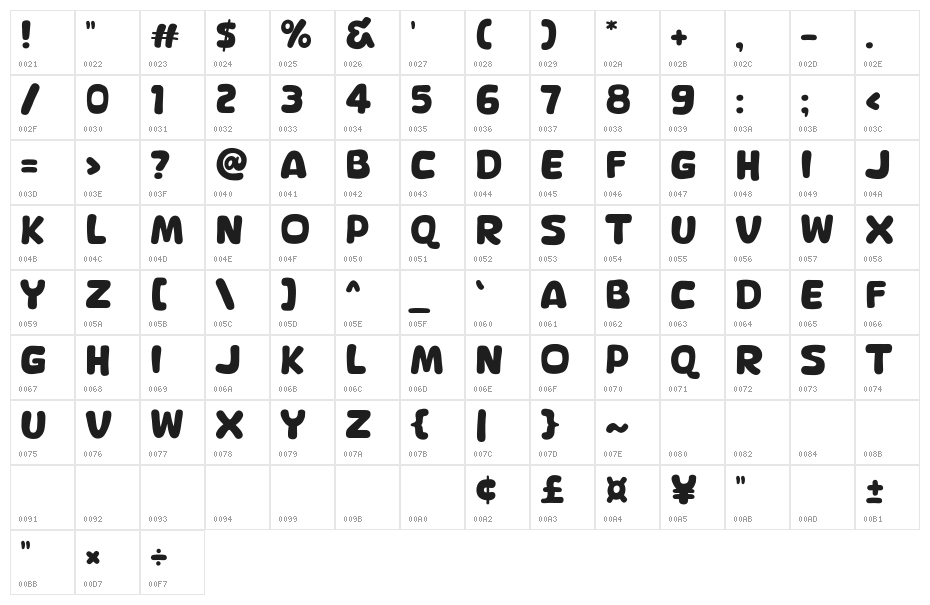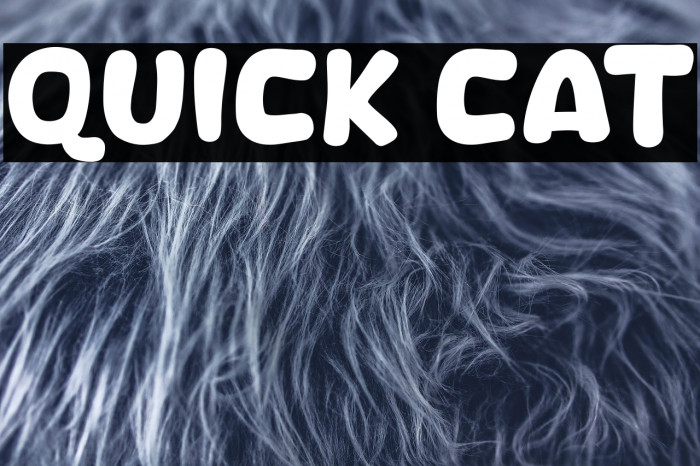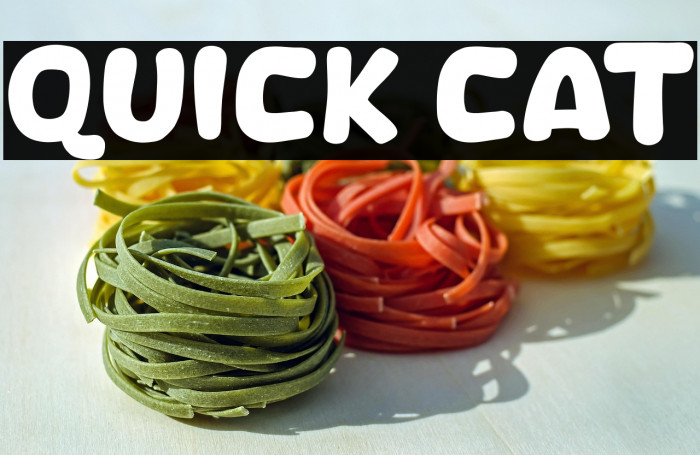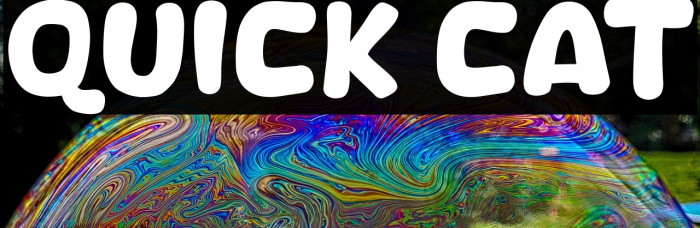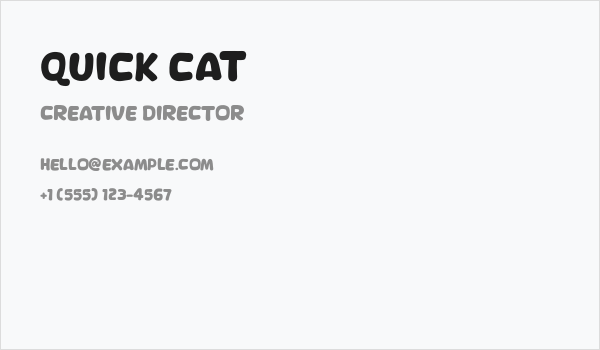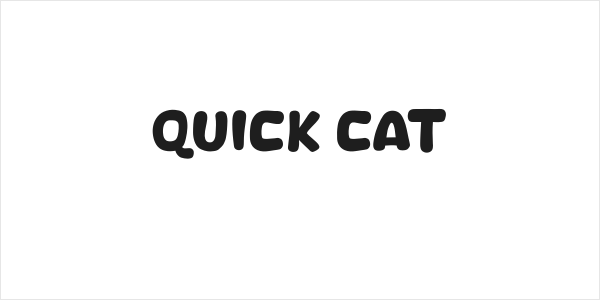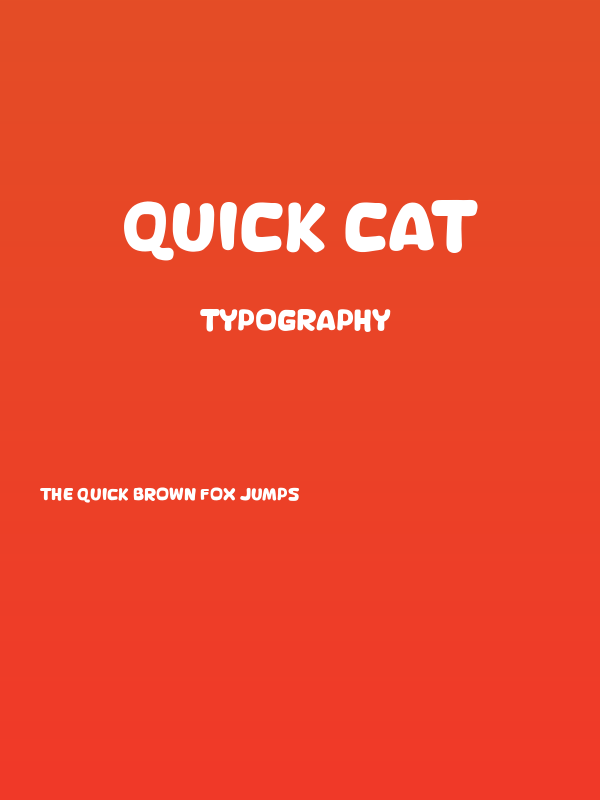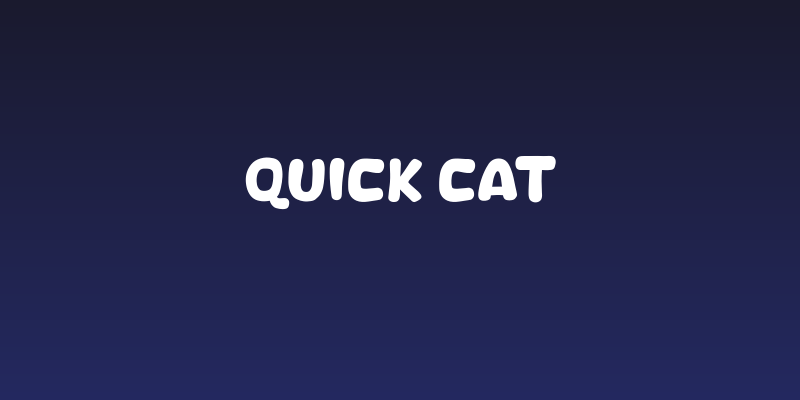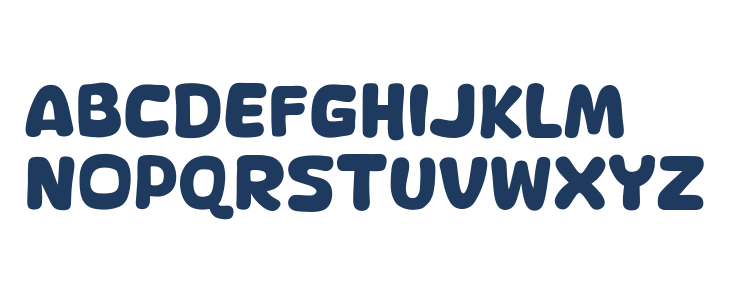
Quick Cat Font
Quick Cat Description
This font features bold, rounded characters with a playful and friendly appearance. The letters are uniformly thick, giving it a consistent and cohesive look. The rounded edges and soft curves contribute to its approachable and informal style, making it suitable for designs that aim to be inviting and engaging. The numbers and special characters maintain the same rounded and bold characteristics, ensuring a harmonious overall appearance. The font's style is reminiscent of retro or vintage designs, yet it maintains a modern touch with its clean and smooth lines.
| Overall Style | Playful, Retro |
| Proposed Projects | Ideal for children's books, playful branding, casual invitations, and retro-themed designs. |